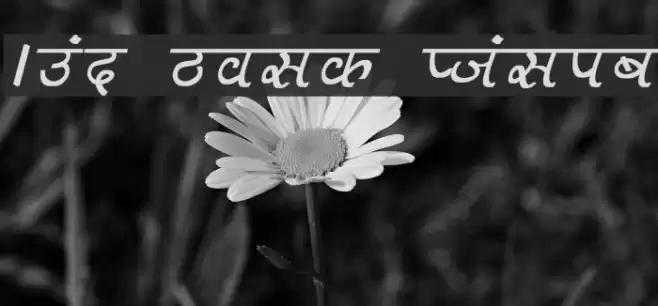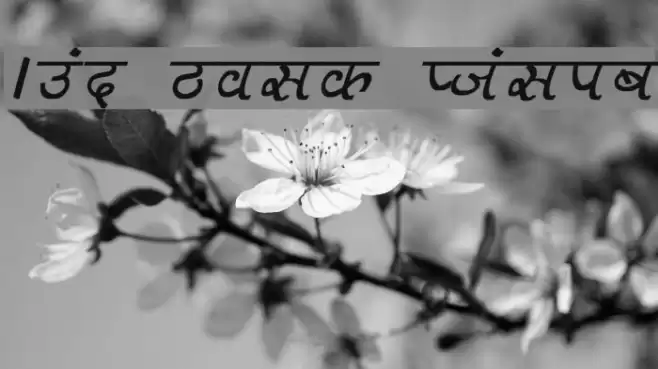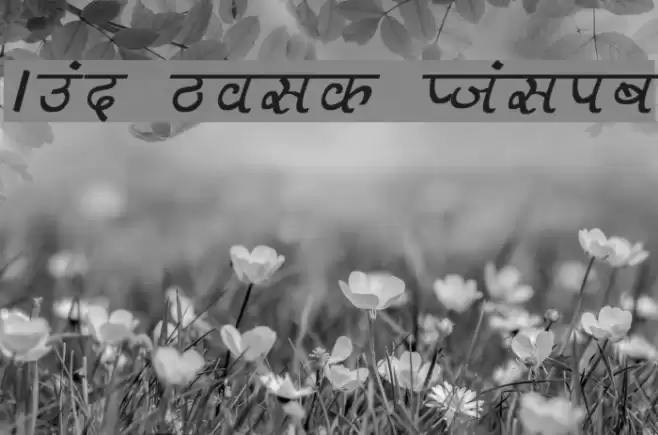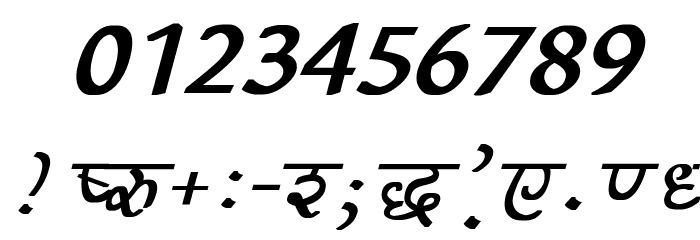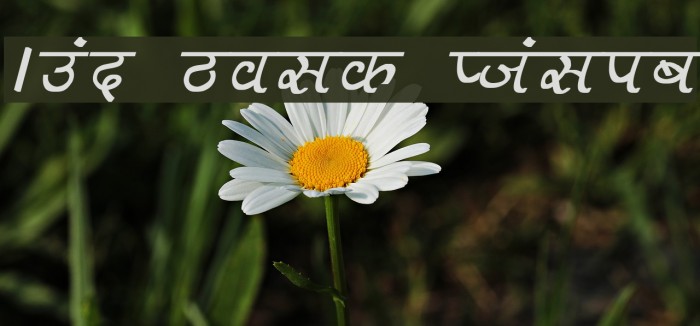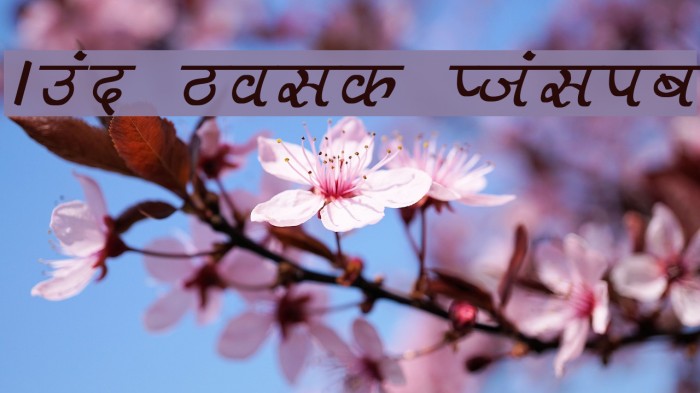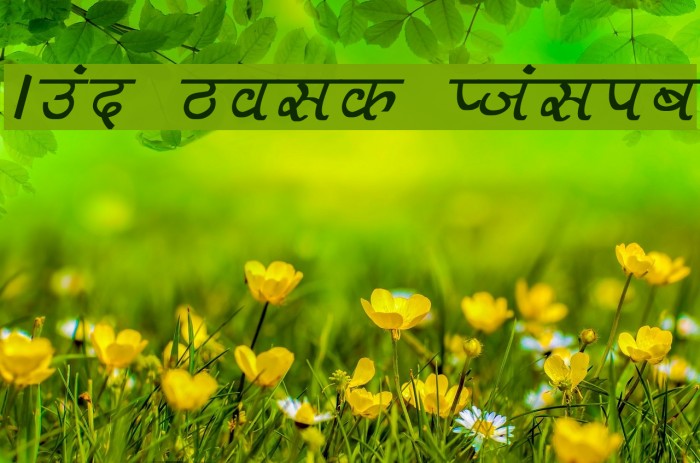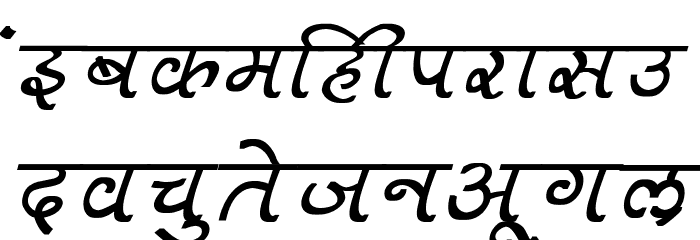
Aman Bold Italic Font
Aman Bold Italic Description
This font presents a bold and italicized style, characterized by its dynamic and flowing script. The strokes are thick and consistent, providing a strong visual impact. The italic slant adds a sense of motion and elegance, making it suitable for decorative purposes. The characters are well-defined with smooth curves and a slight inclination, enhancing readability while maintaining a stylish appearance. The numerals and special characters are designed to match the overall aesthetic, ensuring uniformity across different text elements.
A bold, italicized script font with dynamic and flowing strokes from Uncategorized fonts.